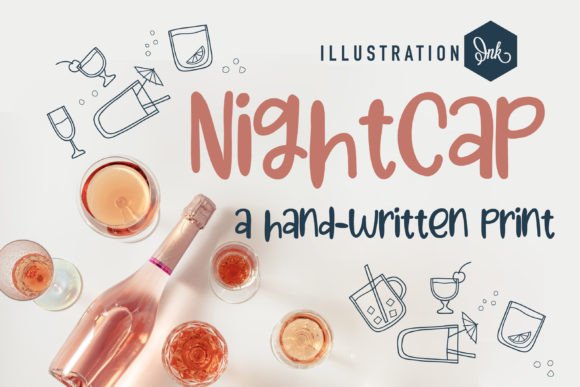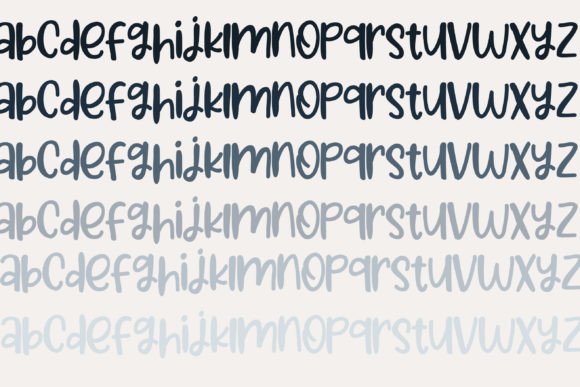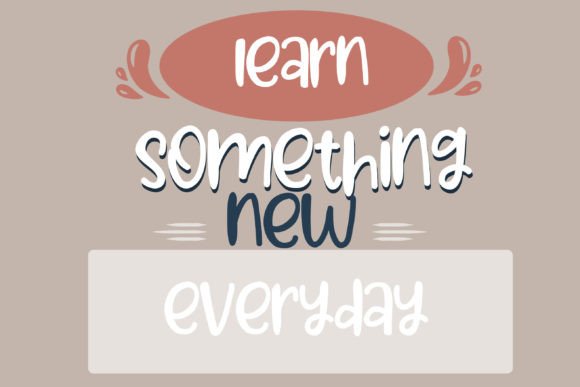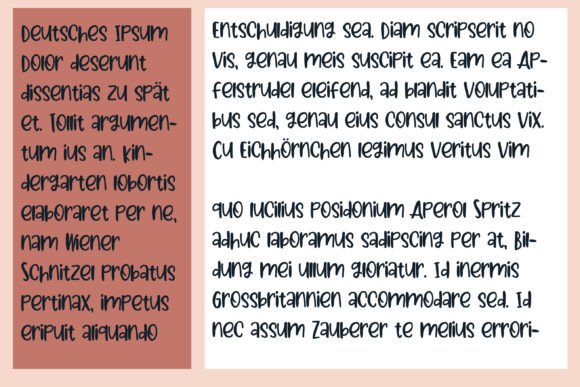
Nightcap Font: A Playful Sans Serif for Cute DIY Designs
About the Nightcap Font
Make a bold statement with Nightcap Font, a powerful and memorable font. This hand-crafted sans serif is a hand-written print with a bit of a fun, whimsical feel.
Nightcap’s whimsical nature makes it ideal for headlines, short text blocks on packaging, or playful branding elements such as logos for cafes or boutiques. It would also work well in posters for events with a lighthearted or informal tone. However, its handcrafted style and varying stroke weights make it unsuitable for body text or UI elements where legibility over long spans is crucial.
For effective pairings, consider a clean, geometric sans-serif like Montserrat for a contemporary contrast, or a classic serif like Garamond for a touch of sophistication. A playful script like Pacifico could also complement Nightcap’s personality in specific applications, though careful consideration of kerning and spacing is necessary.
Nightcap’s overall personality is best described as friendly and approachable, with a touch of vintage charm. Its irregular forms suggest a handcrafted, human touch, making it ideal for brands aiming to communicate warmth and authenticity.
Nightcap Font Usage Examples
Nightcap Font Example